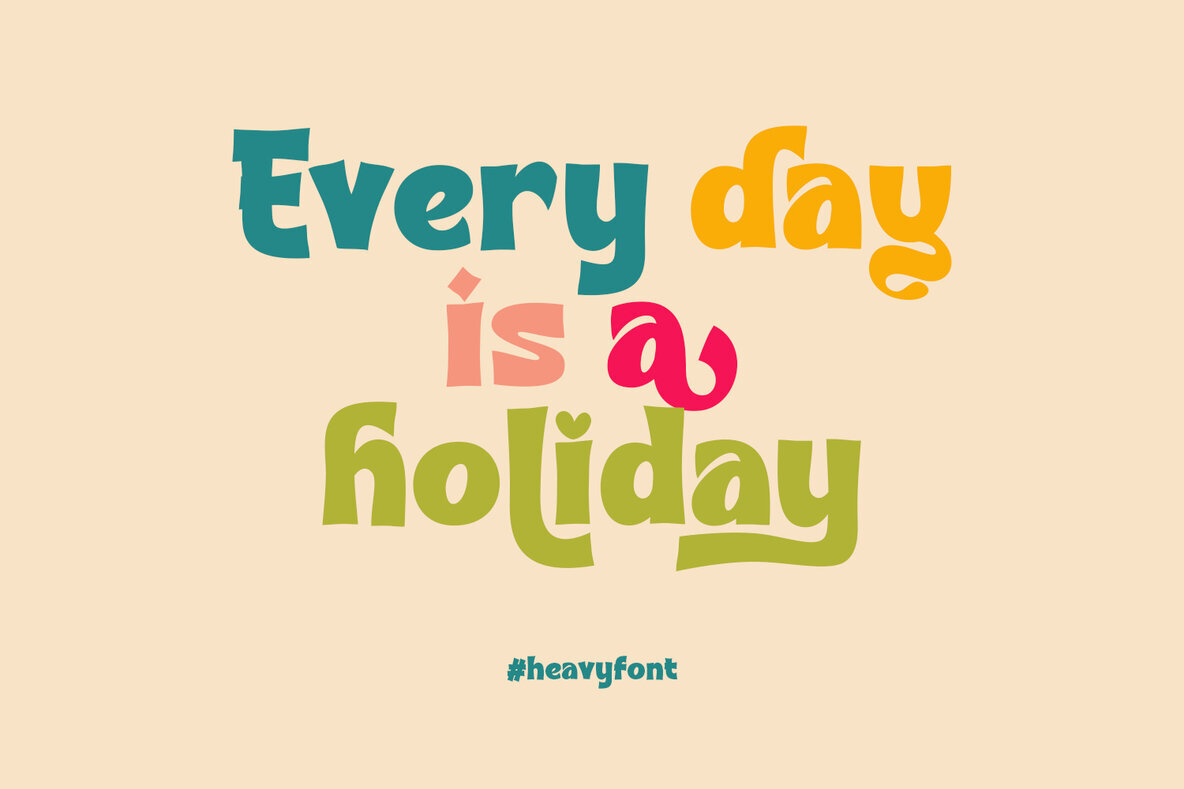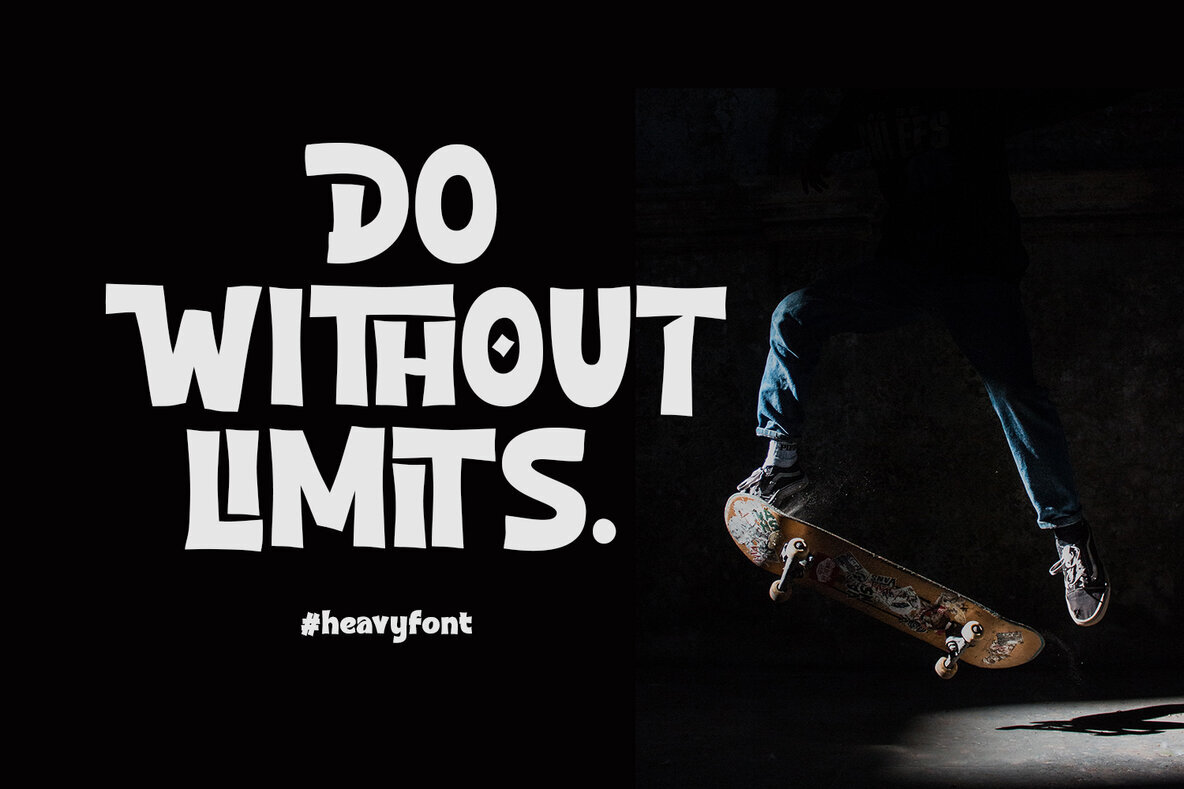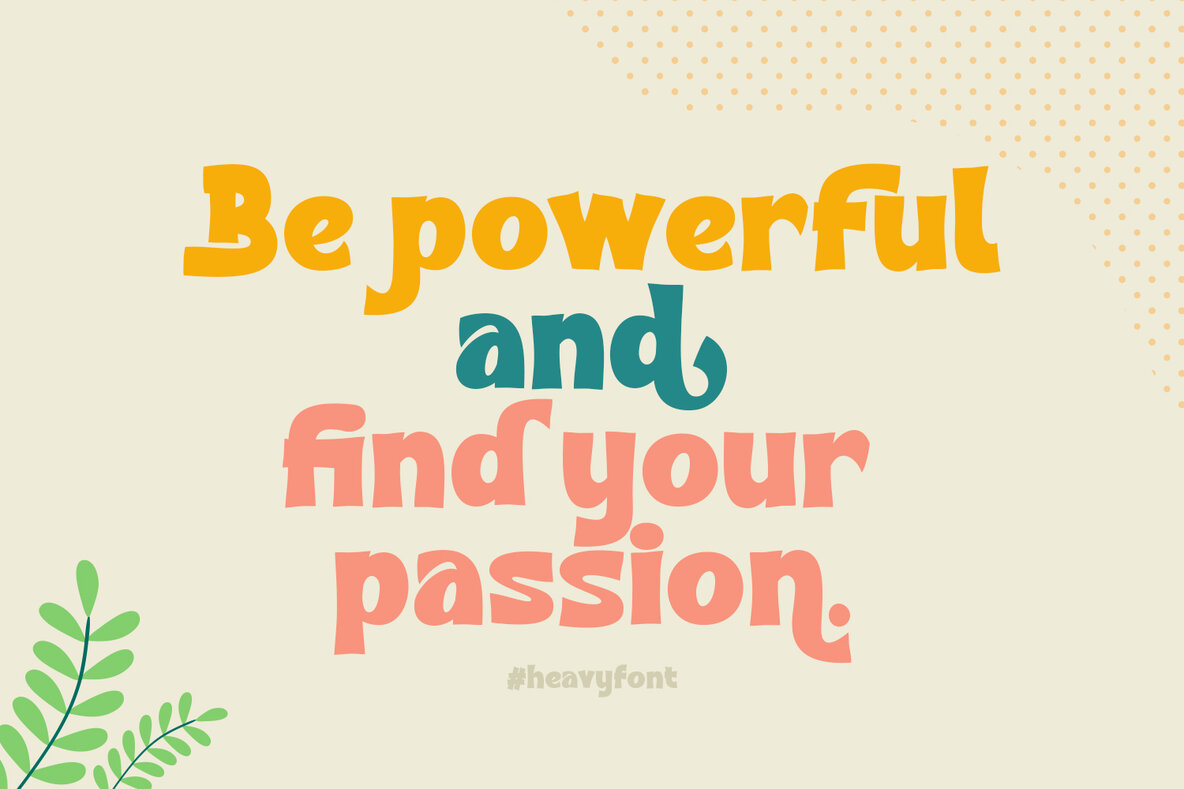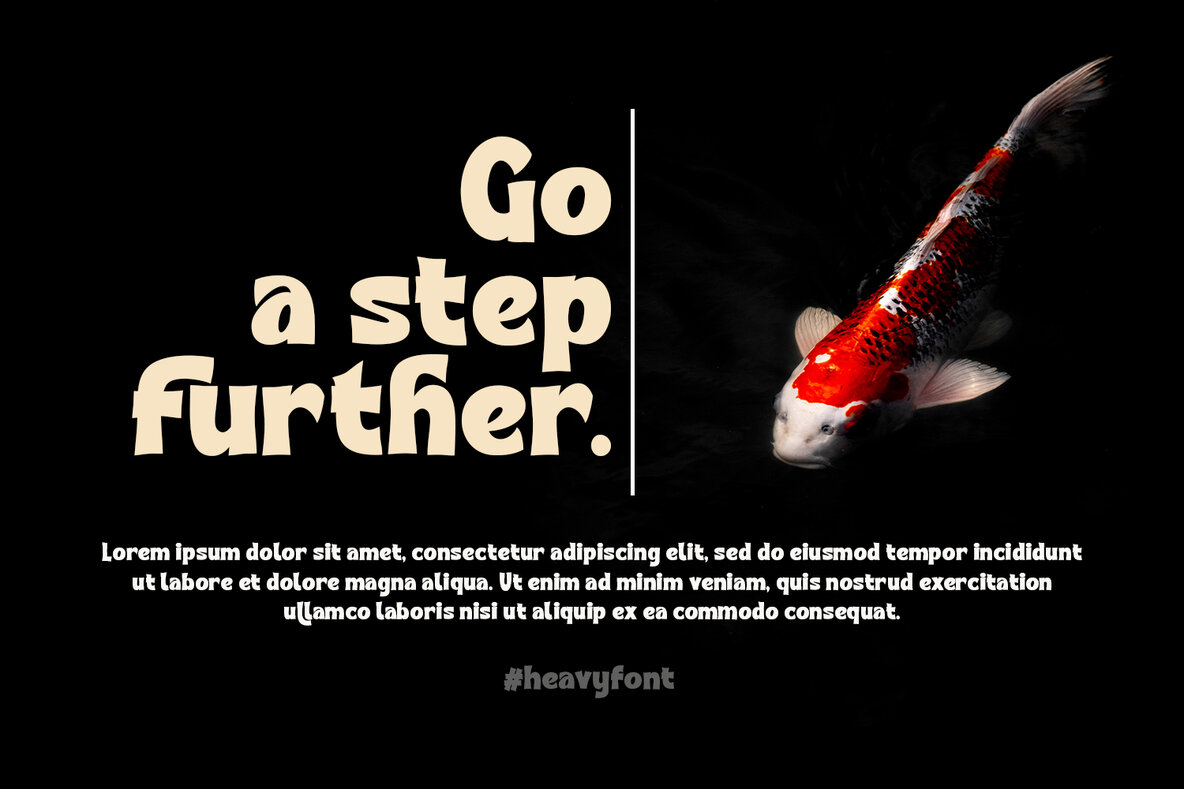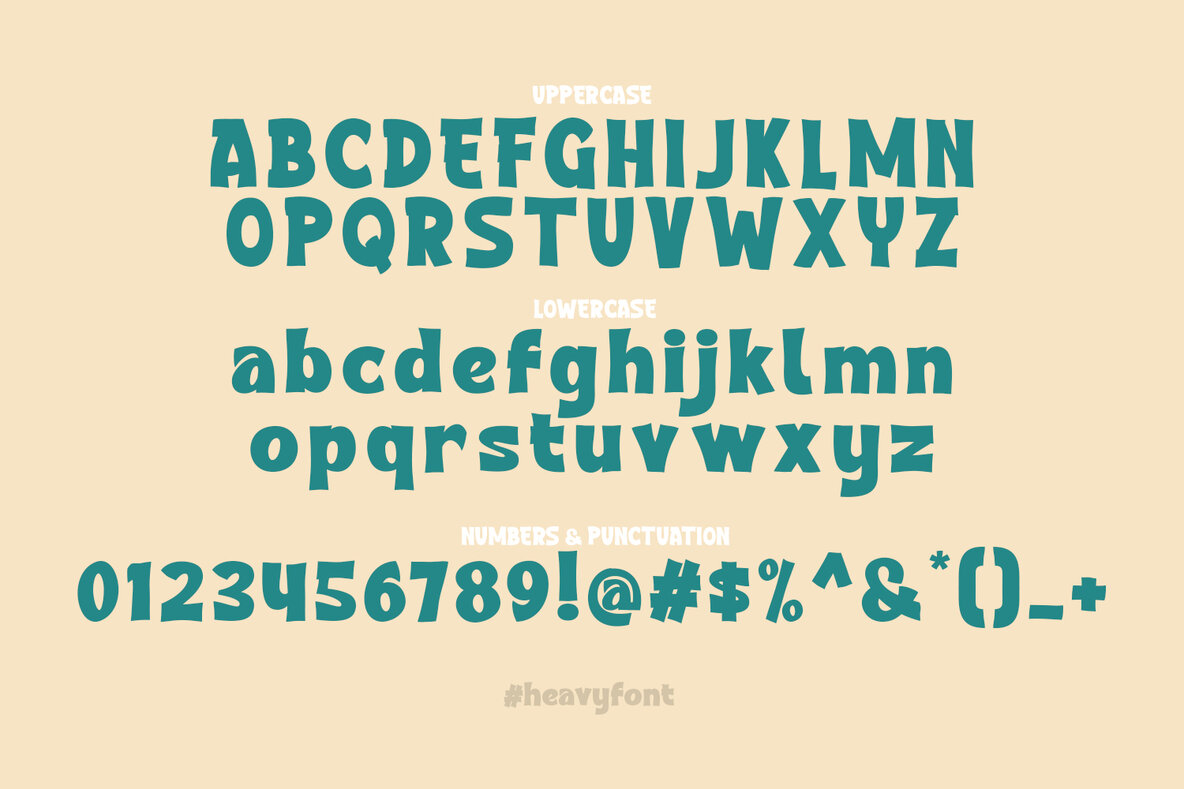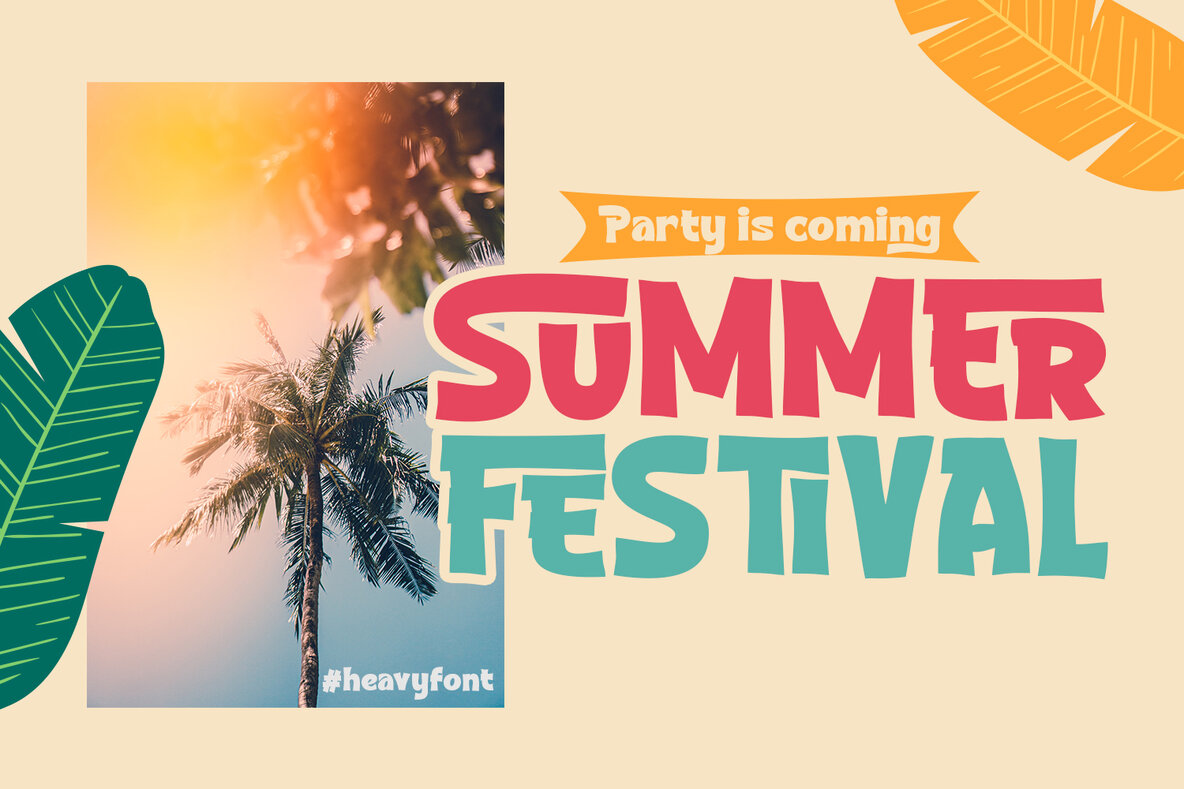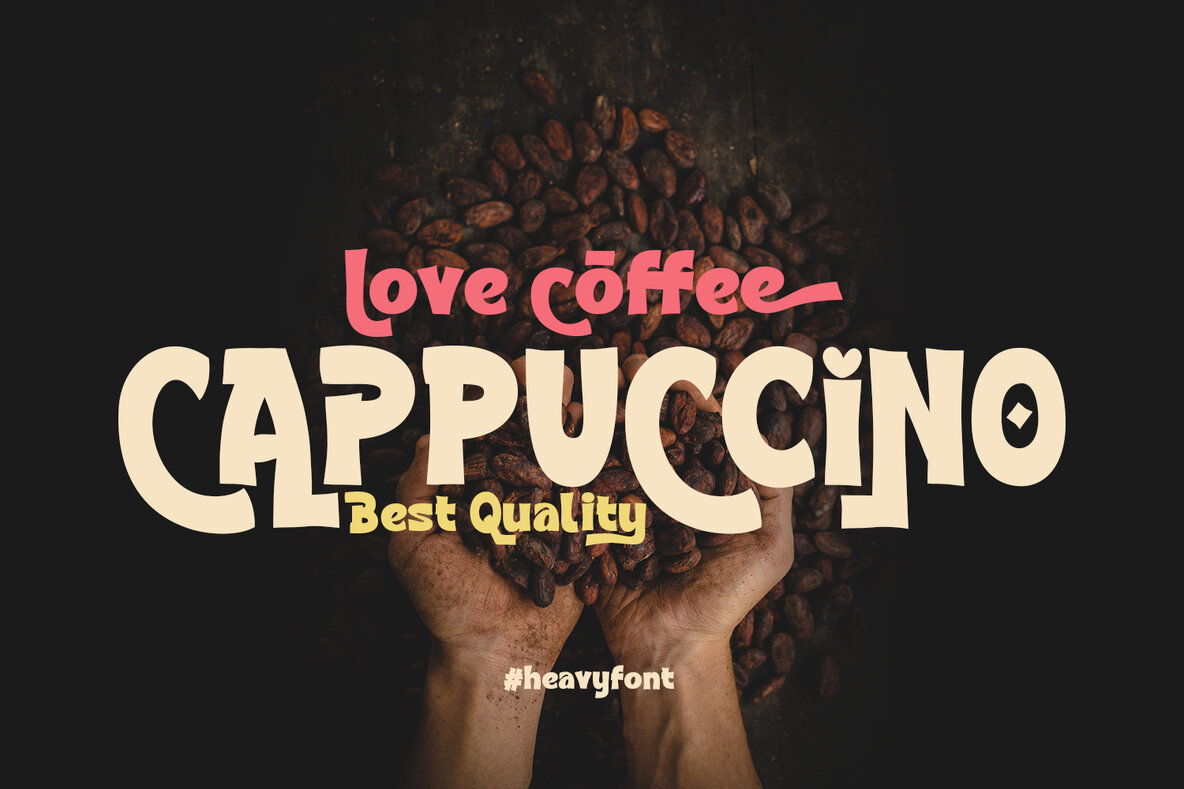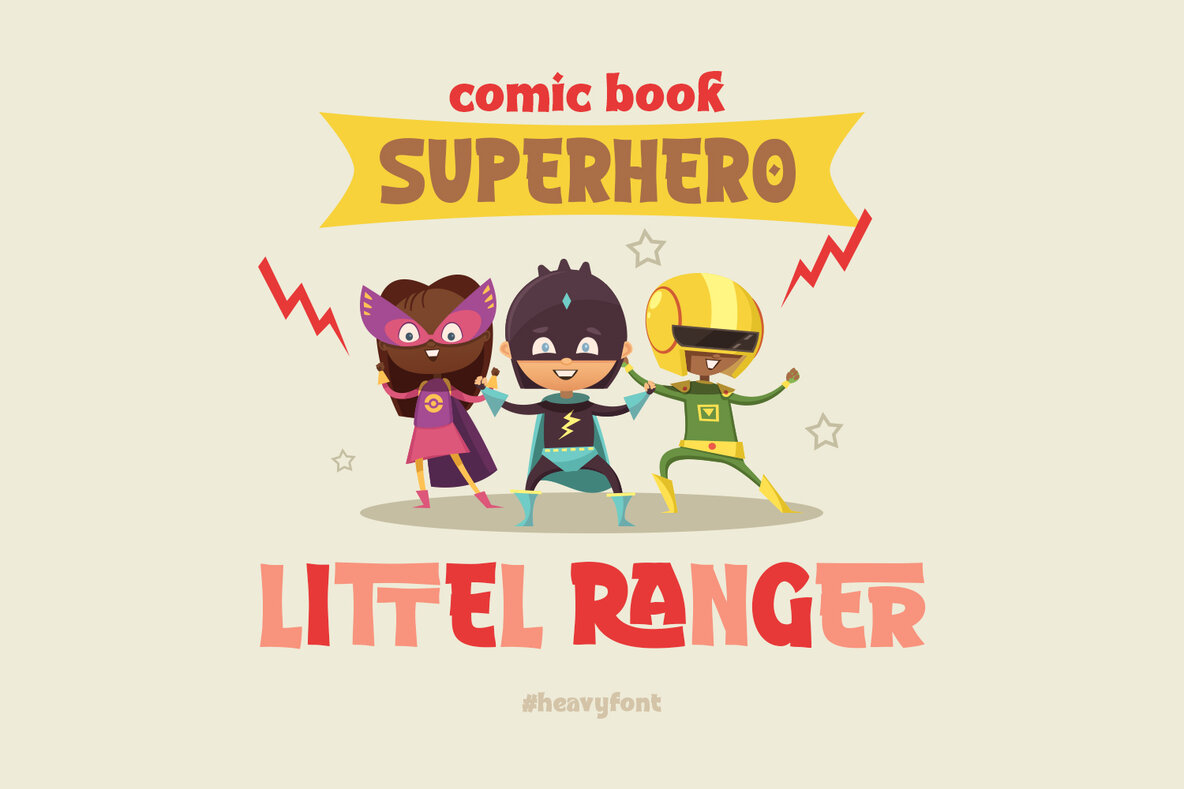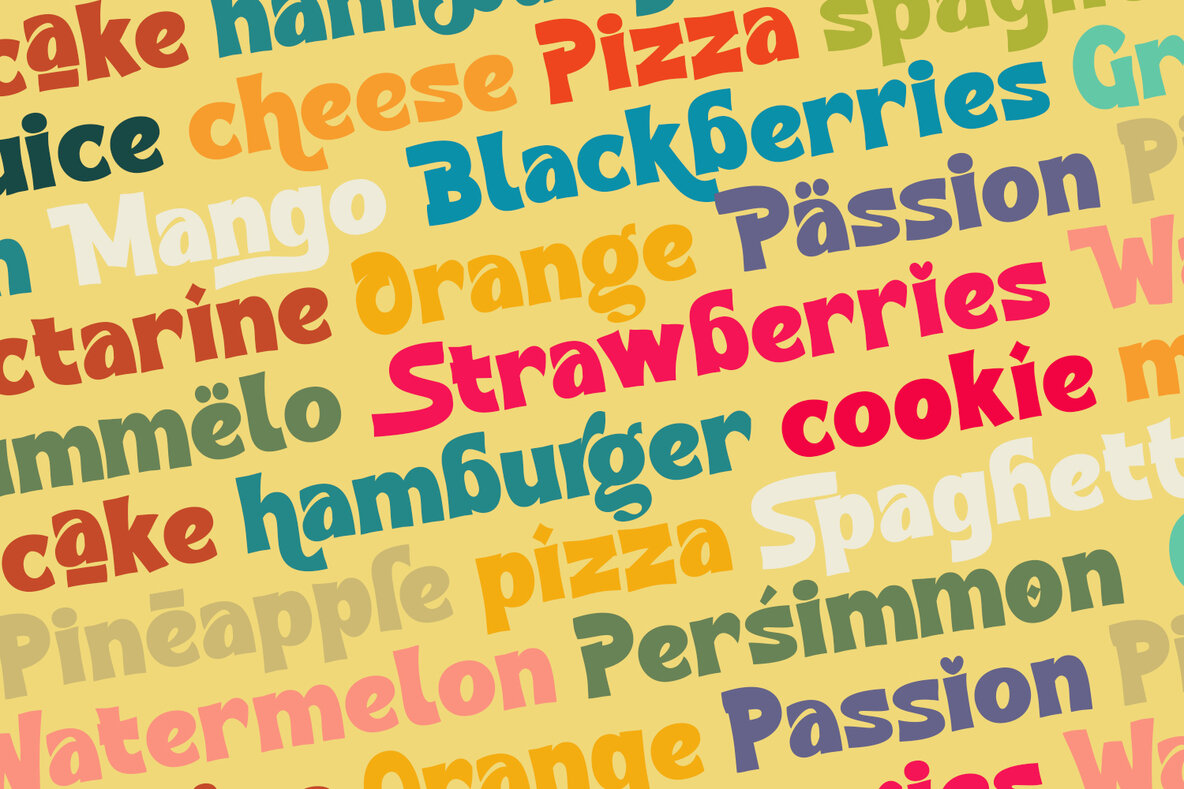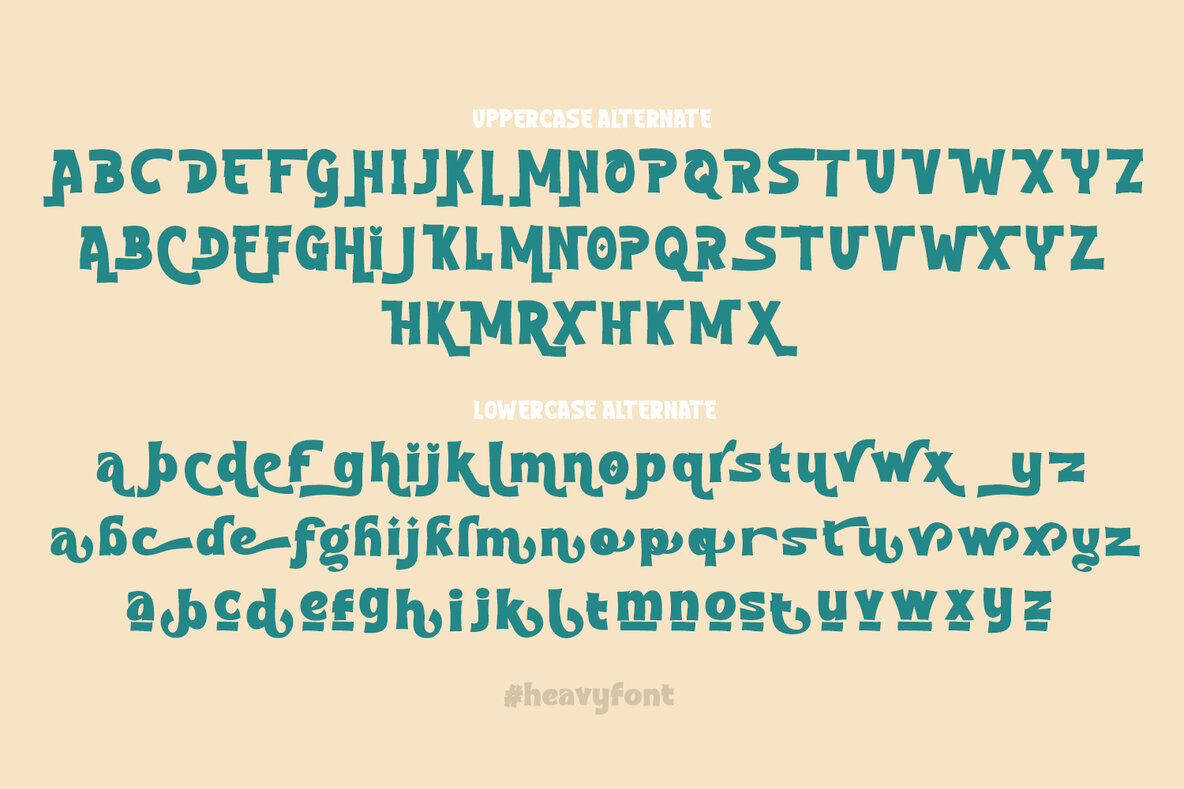
Heavy Font
Embrace the world of typography with Heavy, a bold and vibrant font that shines across an array of creative projects. Its lively character makes it suitable for book titles, branding, product packaging, and more. Whether you're designing invitations or crafting logos, Heavy adds a touch of playful sophistication. Perfect for graphic designers aiming to make a statement, this typeface ensures every word is noticed.Heavy: Bold Charm for Varied Designs